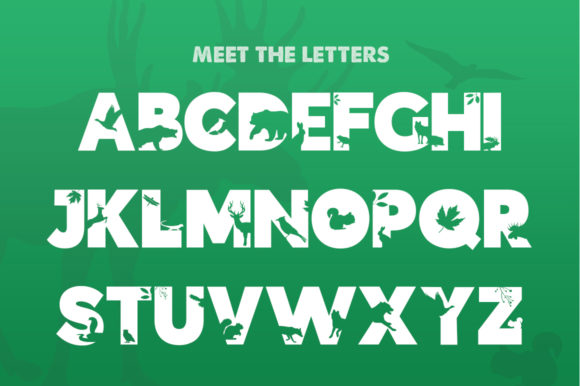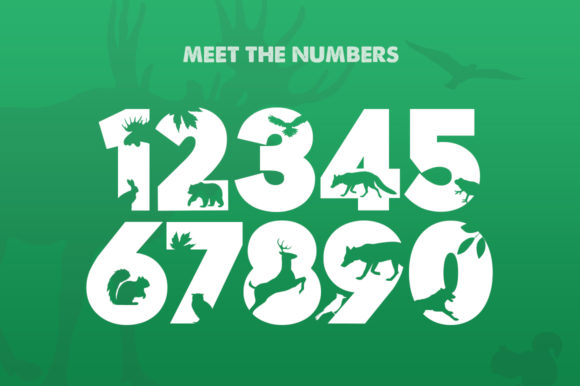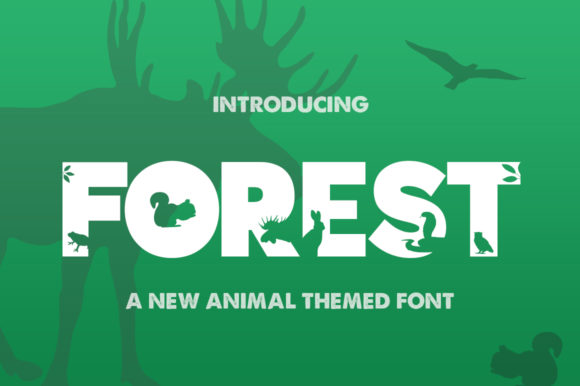
Discover the Enchanting Forest Font: A Charming Display Font for Your Creative Projects
Are you a designer, crafter, or DIY enthusiast looking for a unique and captivating font to add a touch of whimsy to your creative projects? Look no further than the Forest Font, a charming display font that brings the great outdoors to your digital designs. With its fun nature theme and outdoors-inspired characters, Forest Font is sure to fall in love with its rustic charm.
What is Forest Font?
Forest Font is a display font designed to evoke the magic and wonder of the forest. Its unique characters are inspired by the natural world, featuring elements of trees, leaves, and wildlife. The font’s playful and adventurous vibe makes it perfect for a variety of creative projects, from branding and advertising to crafting and DIY tutorials.
Key Features of Forest Font
- Unique Outdoors-Inspired Characters: Forest Font features a range of characters that are inspired by the natural world, including letters, numbers, and punctuation marks that resemble tree branches, leaves, and forest creatures.
- Fun Nature Theme: The font’s fun and playful nature theme makes it perfect for projects that require a touch of whimsy and adventure.
- Charming Display Font: Forest Font is designed to make a statement, with bold and eye-catching characters that are sure to grab attention.
- Easy to Read: Despite its playful nature, Forest Font is easy to read and understand, making it perfect for use in a variety of creative projects.
Uses for Forest Font
Forest Font is a versatile font that can be used in a variety of creative projects, including:
- Branding and Advertising: Use Forest Font to create eye-catching logos, advertisements, and marketing materials that stand out from the crowd.
- Crafting and DIY Tutorials: Add a touch of whimsy to your crafting and DIY tutorials with Forest Font, perfect for projects such as woodworking, sewing, and gardening.
- Stationery and Invitations: Use Forest Font to create charming stationery, invitations, and greeting cards that are sure to delight.
- Web Design: Add a touch of nature to your website with Forest Font, perfect for use in headings, titles, and other display text.
Tips for Using Forest Font
To get the most out of Forest Font, here are a few tips to keep in mind:
- Use it Sparingly: Forest Font is a bold and eye-catching font, so use it sparingly to avoid overwhelming your design.
- Pair it with Other Fonts: Pair Forest Font with other fonts to create a unique and interesting contrast.
- Experiment with Colors: Forest Font looks great in a range of colors, from earthy tones to bright and bold hues.
Forest Font is a charming display font that is sure to bring a touch of whimsy and adventure to your creative projects. With its unique outdoors-inspired characters and fun nature theme, it’s perfect for designers, crafters, and DIY enthusiasts looking for a font that stands out from the crowd. So why not give Forest Font a try and see how it can add a touch of magic to your designs?
Whether you’re looking to create eye-catching branding and advertising materials, charming stationery and invitations, or fun and playful crafting and DIY tutorials, Forest Font is the perfect choice. So go ahead, fall in love with Forest Font, and bring a touch of the great outdoors to your creative projects!